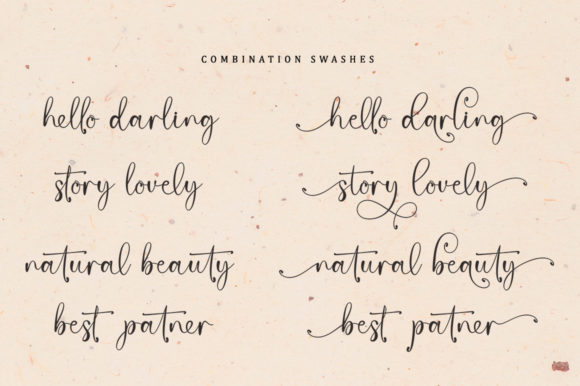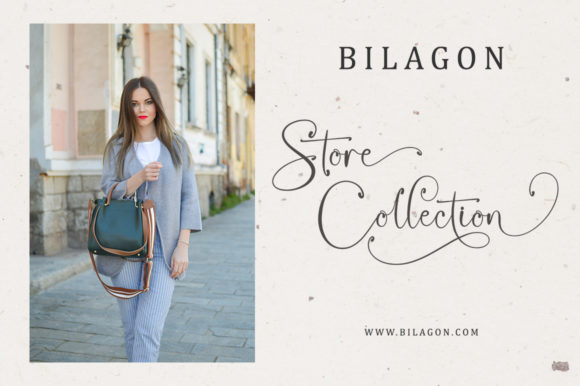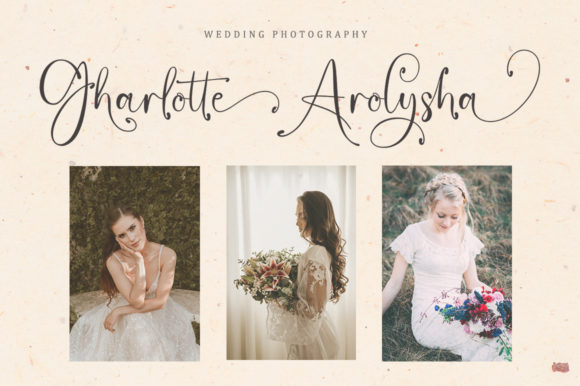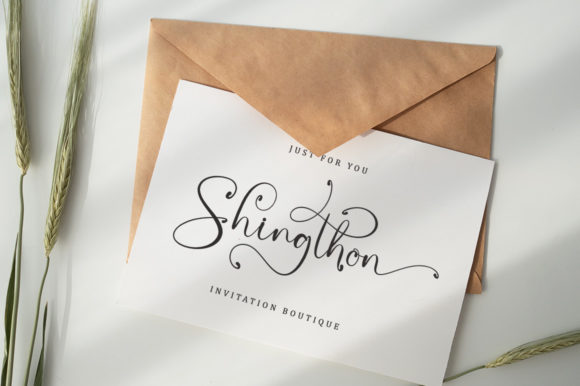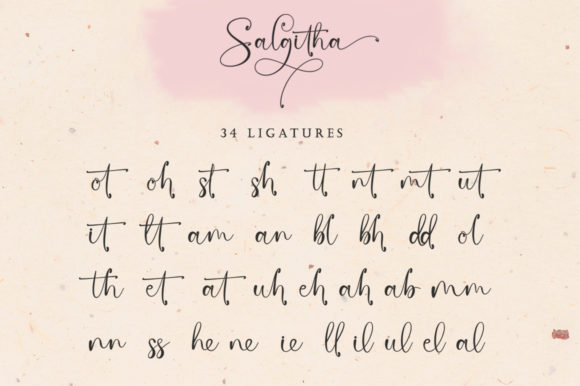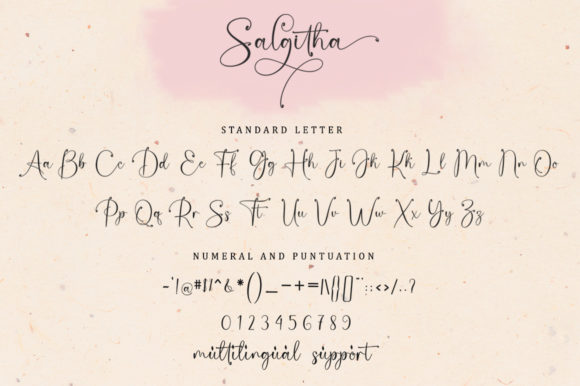
Introduction to Salgitha Font
As a designer, have you ever been working on a creative project and wished you had the perfect font to elevate your design to the next level? Perhaps you’re envisioning a luxurious logo or branding that exudes elegance and sophistication. I’ve been there too, and that’s why I’m excited to introduce you to the stunning Salgitha Font.
This modern luxury script font is a game-changer for designers looking to add a touch of glamour to their designs. With its beautiful character change and classic signature style, Salgitha Font is sure to impress. Its clean, feminine, and sensual design makes it a perfect choice for a wide range of creative projects, from fashion branding to wedding invitations.
What sets Salgitha Font apart is its high-quality design and PUA encoding, which makes it easy to access all the amazing glyphs and ligatures. This means you can download the font for free and use it to create stunning designs with a transparent background, without any hassle.
Key Features of Salgitha Font
- Unique, hand-drawn design with a creative touch, perfect for artistic projects and presentations
- High-quality font with transparent background, ideal for overlaying on images and videos
- Features a high-resolution design (300 DPI) for crisp and clear text display
- Designed to be versatile and suitable for a wide range of creative projects, from logos and branding to publications and advertising
- Includes a comprehensive character set, including uppercase and lowercase letters, numbers, and punctuation marks
Honest Review: Salgitha Font
As a designer, I’ve had the chance to work with a wide range of fonts, and I must say that the Salgitha Font is definitely one of the more interesting ones I’ve come across.
What works well about the Salgitha Font is its unique, elegant design that makes it perfect for creative projects where you want to add a touch of sophistication. The high quality of the font is also noteworthy, with crisp lines and clear letterforms that make it easy to read even at smaller sizes. I also appreciate that the font comes with a transparent background, which makes it easy to overlay on top of images or other design elements.
- ✨ Unique and elegant design
- ✨ High quality and crisp letterforms
- ✨ Transparent background for easy overlay
However, I do have a few limitations with the Salgitha Font. For one, the font is only available in a single weight, which may not be suitable for projects where you need a range of weights and styles. Additionally, the font may not be as versatile as some other fonts, which may limit its use in certain design contexts.
Overall, I would give the Salgitha Font 4 out of 5 stars. While it’s not perfect, it’s a solid design resource that’s worth considering for creative projects where you want to add a touch of elegance. Just be aware of its limitations and use it accordingly.
Tips for Getting the Most Out of the Salgitha Font
To get the most out of the Salgitha Font, use it with a transparent background to create a clean and minimalist design. This font is perfect for creative projects, such as graphic design, digital art, and typography. You can also use it with high-quality images to create a visually appealing design.
The Salgitha Font is commonly used in design projects that require a unique and creative touch. Some common use cases include:
- Digital art
- Branding